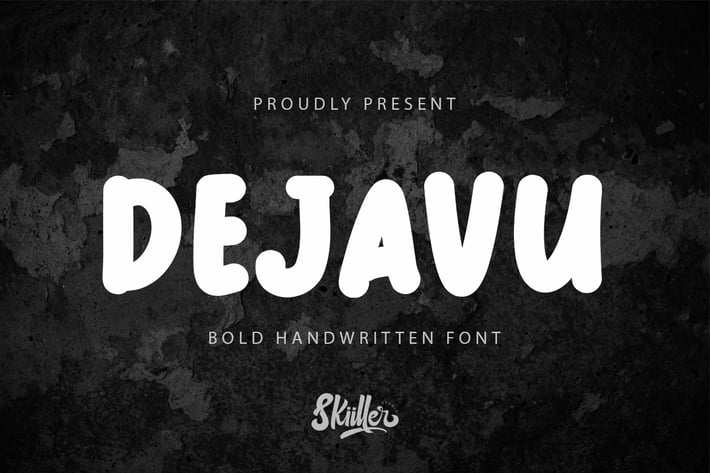
Dejavu - Handwritten Font
Dejavu a handwritten font. This font will very suitable for your fun project like children party, cute quotes, or any cute fun related projects. Grab it now !